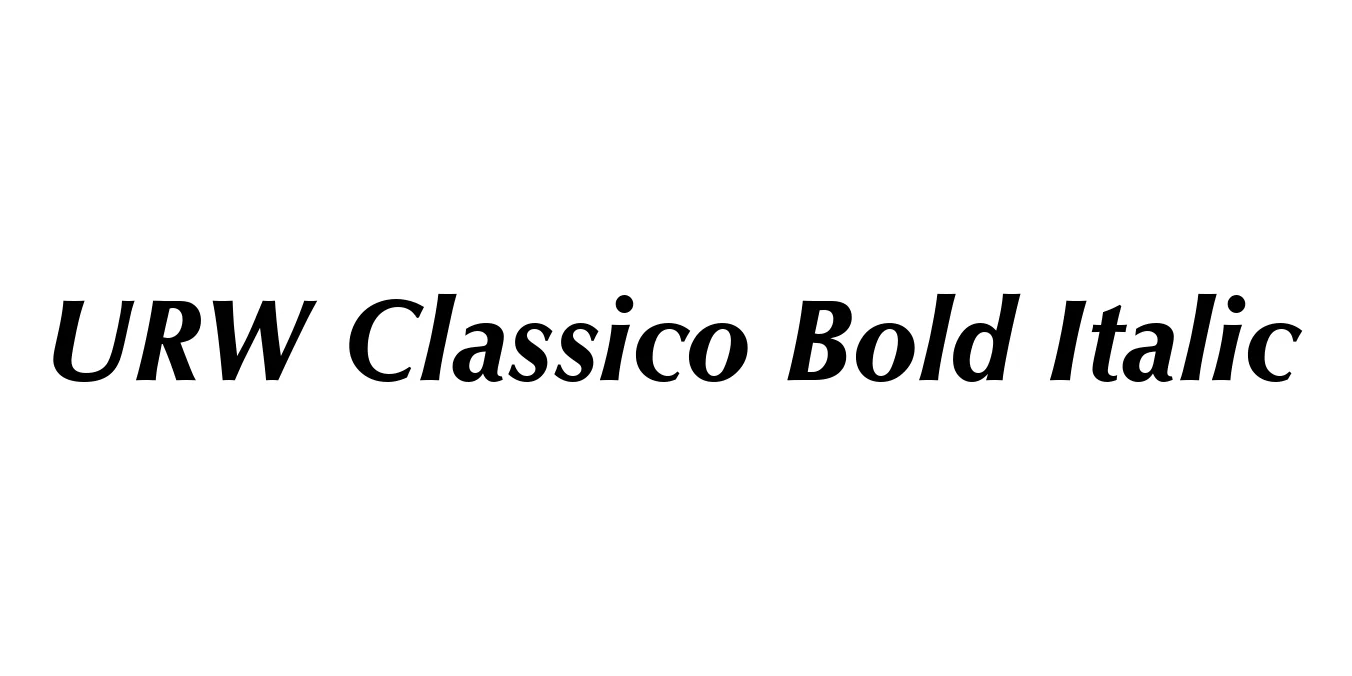
URW Classico Bold Italic
Designed by Hermann Zapf
| Category | Humanist Sans-Serif |
| Designer | Hermann Zapf |
URW Classico Bold Italic is a distinguished digital revival of Hermann Zapf’s legendary Optima typeface. It represents a unique classification often called 'serif-less roman,' blending the structural elegance of classical Roman letterforms with the clean simplicity of a sans-serif. The Bold Italic variant specifically emphasizes the humanistic calligraphic influence of Zapf's original design, featuring tapered terminals and subtle weight variations that provide a sense of movement and sophistication.
Developed by the URW Type Foundry, this font family was designed to maintain high legibility while offering a more refined aesthetic than standard functional sans-serifs. URW Classico Bold Italic is highly regarded in the design world for its ability to convey luxury and authority without the rigidness of traditional serifs. It is a versatile tool for designers looking to inject a touch of classical history into modern layouts, ensuring a timeless feel for both print and digital media.
URW Classico Bold Italic Best Uses
Excellent for pull quotes, subheadings, and emphasizing text in high-end magazine layouts.
Perfect for creating sophisticated wordmarks for fashion, jewelry, or premium lifestyle brands.
Adds a refined and graceful touch to wedding stationery and formal gala invitations.
Effective for luxury product campaigns that require a balance of modernism and tradition.